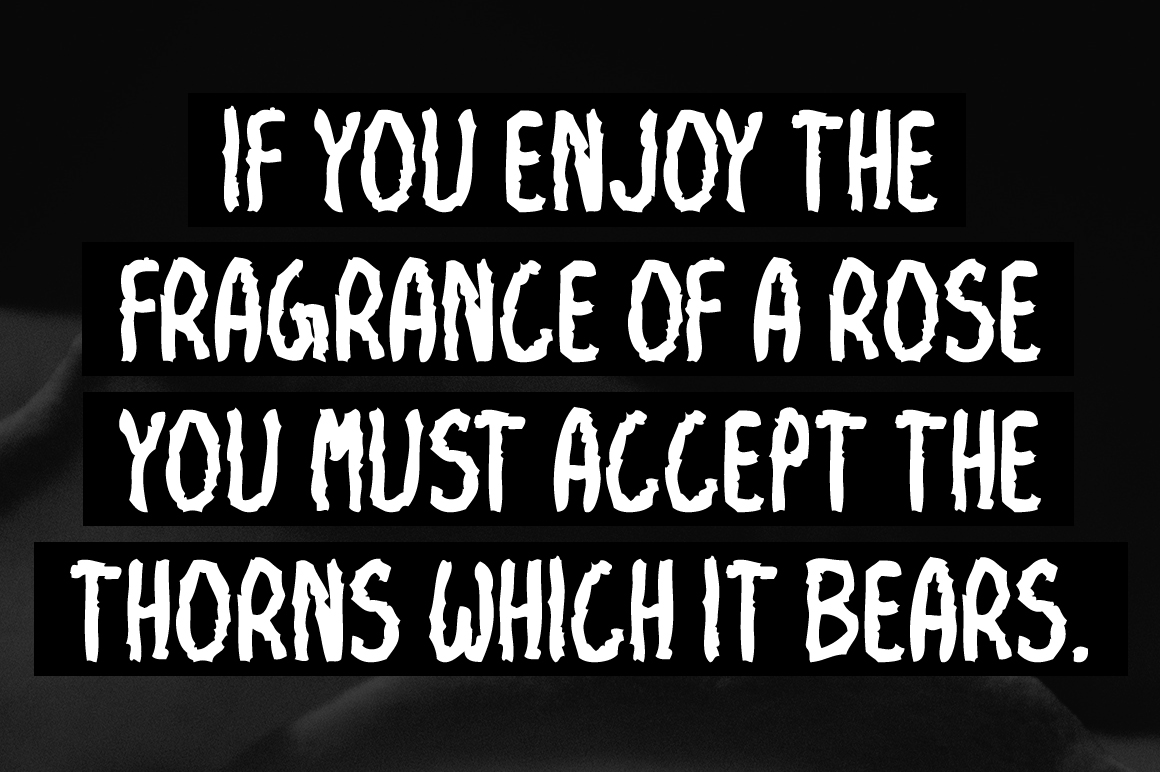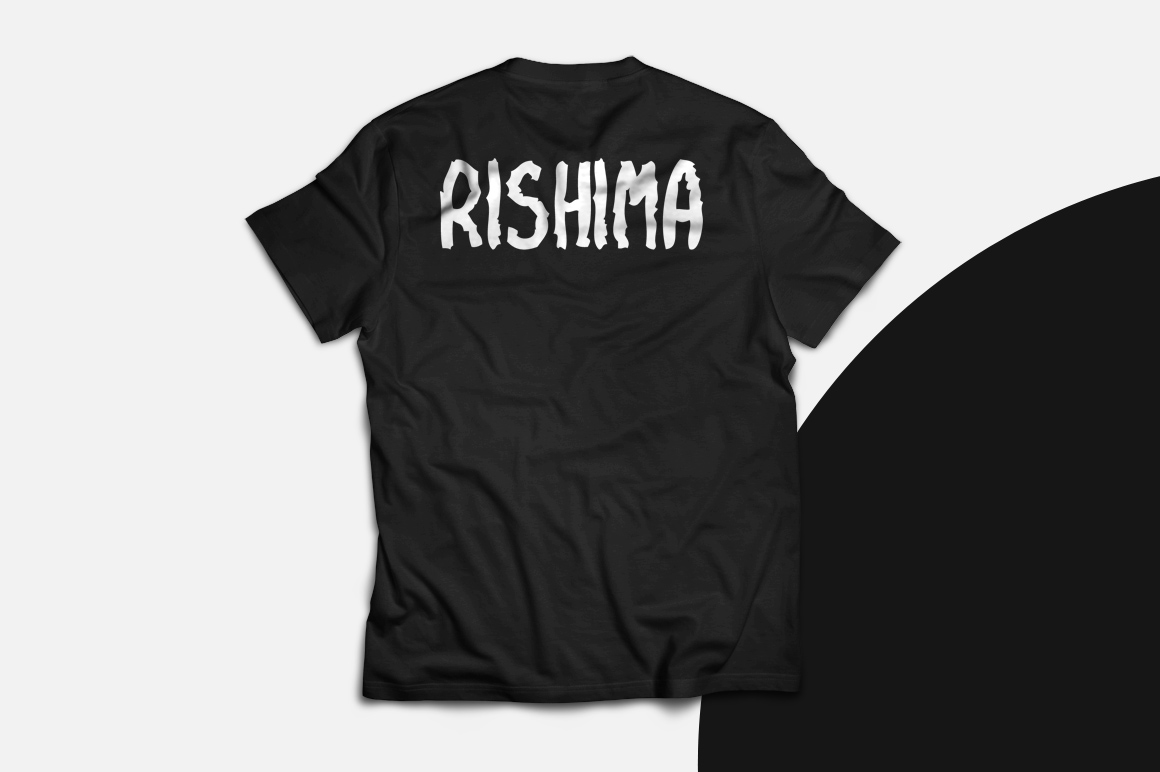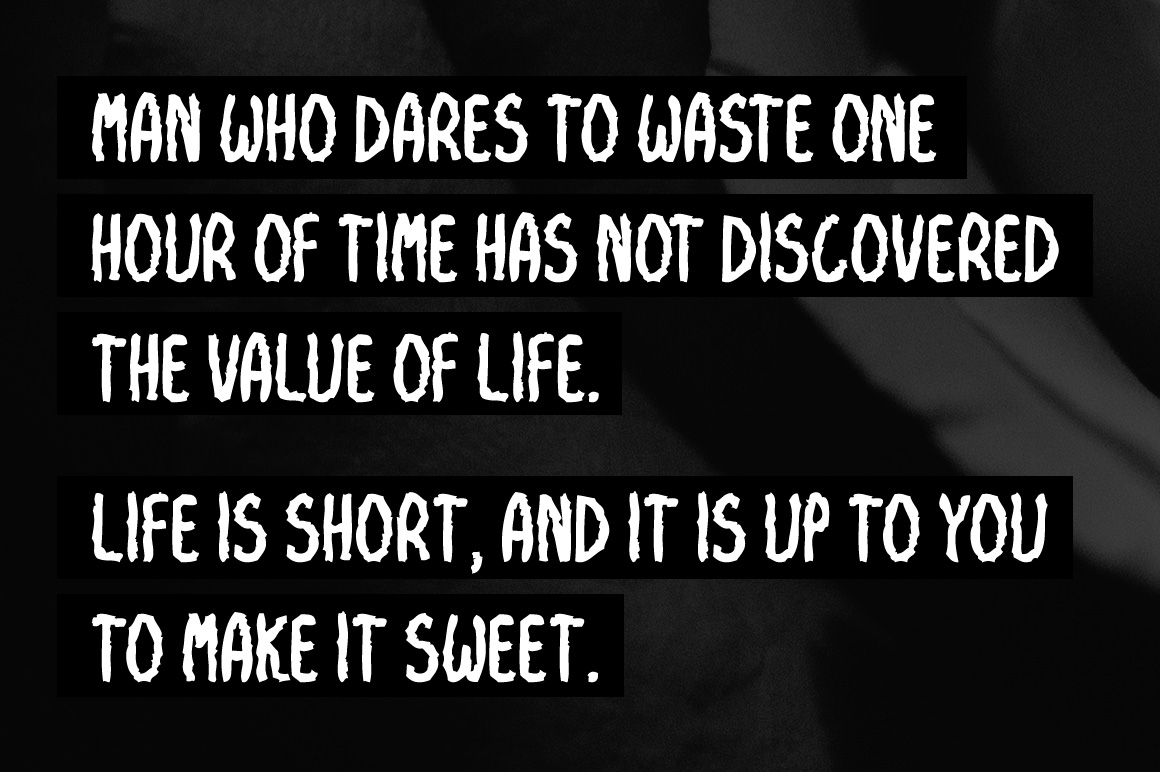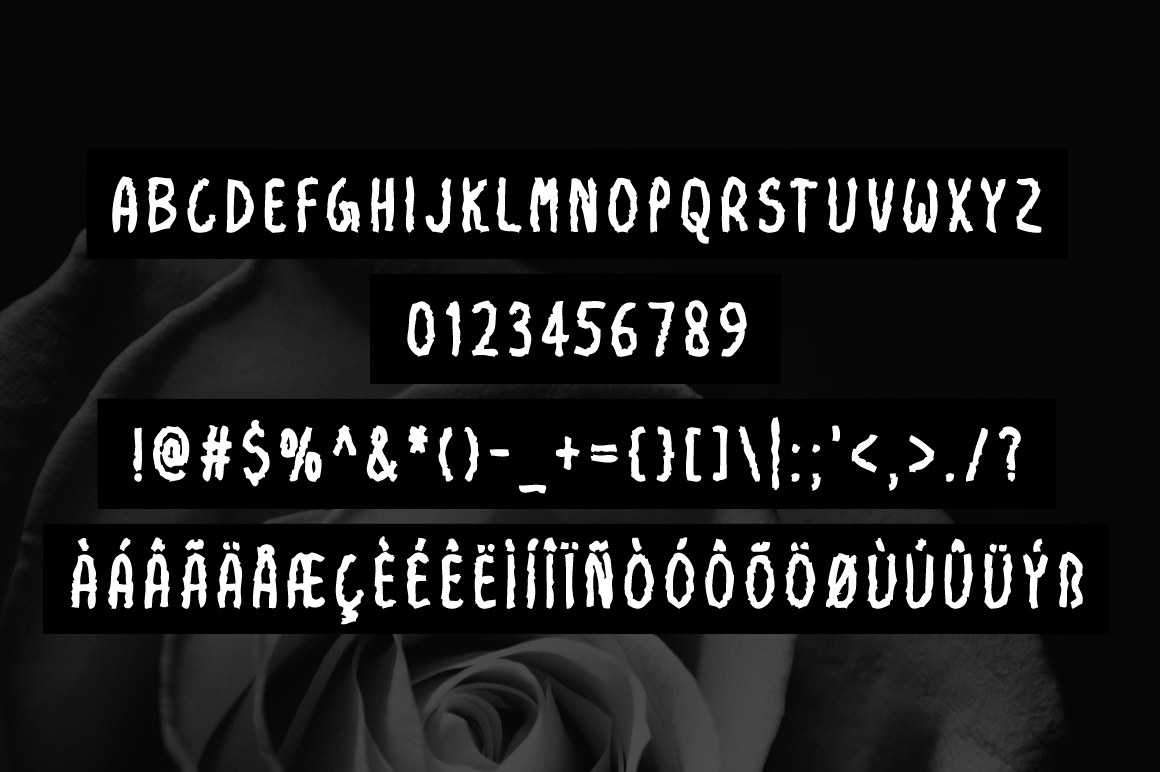
Introduction to Rishima Tint Font
You’ve stared at a blank canvas, a blank page, or a blank screen, waiting for inspiration to strike. That’s when it happens – a spark of creativity, a burst of imagination, and a dash of uniqueness. You need a design resource that’s just as bold and edgy as your creative vision. That’s where the Rishima Tint Font comes in – a high-quality, free download that’s about to take your design project to the next level.
With its ripped freestyle aesthetic, the Rishima Tint Font adds a touch of personality to any design. Whether you’re working on a creative project that needs a little extra flair or simply want to add some visual interest to your social media graphics, this font is sure to deliver. Its transparent background makes it easy to layer over other design elements, while its free download status means you can experiment with it without breaking the bank.
As a designer, you know the value of having the right tools at your fingertips. The Rishima Tint Font is a valuable addition to any design arsenal, offering a level of creativity and flexibility that’s hard to find elsewhere. So why settle for boring, run-of-the-mill design when you can add a dash of Rishima Tint Font magic to your next project?
Key Features of Rishima Tint Font
- High-quality, elegant design suitable for creative projects, including illustrations, graphics, and branding materials.
- Unique, transparent background design allowing for easy layering and manipulation in graphic design software.
- Includes a range of weights and styles to cater to different design needs, from light to bold, and regular to italic.
- Designed to be highly legible at various resolutions and sizes, making it suitable for print and digital applications.
- Part of a larger font family, offering a comprehensive solution for designers seeking a cohesive and professional look.
Honest Review: Rishima Tint Font
I recently came across the Rishima Tint Font, and I must say it’s a fantastic addition to any designer’s toolkit. As a designer, I appreciate high-quality fonts that can elevate my creative projects and make them stand out. The Rishima Tint Font delivers on this promise.
One of the standout features of this font is its transparent background, which makes it perfect for overlays and other design elements where a clear background is required. This level of detail is exactly what I look for in a design resource.
Here are some pros and cons I’ve observed:
- ✨ Transparent background makes it versatile for various design elements
- ⚠️ Limited character set, which may not be ideal for longer texts
- ⚠️ Not suitable for body text due to its decorative nature
Overall, I’m impressed with the Rishima Tint Font. It’s a great addition to any designer’s collection, and I appreciate that it’s available for free download. While it may have some limitations, it’s a fantastic resource for designers looking to add a touch of elegance to their creative projects.
Tips for Getting the Most Out of Rishima Tint Font
Experiment with different font sizes and styles to create visual interest. Use the Rishima Tint Font in conjunction with other design resources to create a cohesive look. Consider using the font in a design project where a high-quality, transparent background is essential.
The Rishima Tint Font is ideal for creative projects such as graphic design, digital art, and print materials. Its high-quality design and transparent background make it perfect for use in presentations, documents, and websites.
Yes, the Rishima Tint Font is designed to work well with transparent backgrounds. It has a high level of transparency, making it ideal for use in creative projects that require a subtle, layered look.